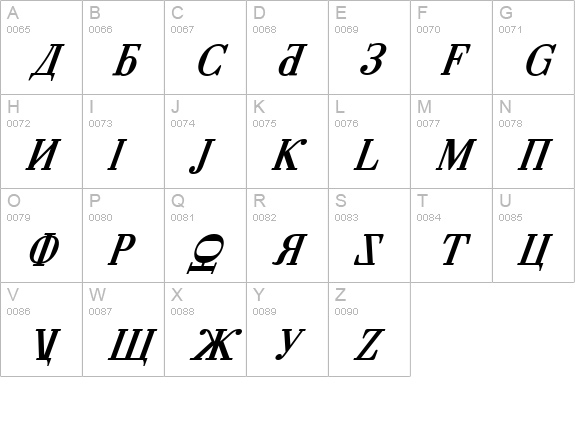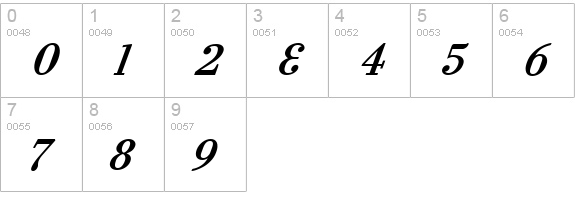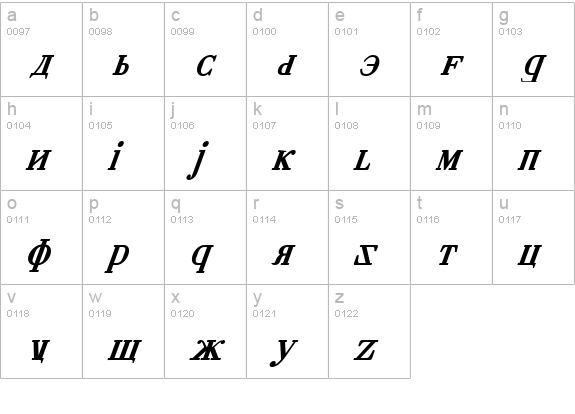
Cyberia Bold Italic is a strong, high-contrast, italic variant in the Cyberia typeface family \xE2\x80\x94 well suited to headlines, attention-grabbing titles, and strong calls-to-action.
Cyberia Bold Italic is a dynamic and modern font that exudes a sense of futuristic sophistication. Its sleek lines and bold curves make it a perfect choice for projects that require a contemporary edge. The italicized style adds a touch of elegance and flair, making any text stand out with a stylish twist. Best of all, Cyberia Bold Italic is completely free to download at FontsMarket.com. Whether you're working on a graphic design project, creating a website, or designing a logo, this font will add a touch of modernity and professionalism to your work. Don't miss the opportunity to enhance your designs with this versatile and eye-catching typeface that is just a download away.